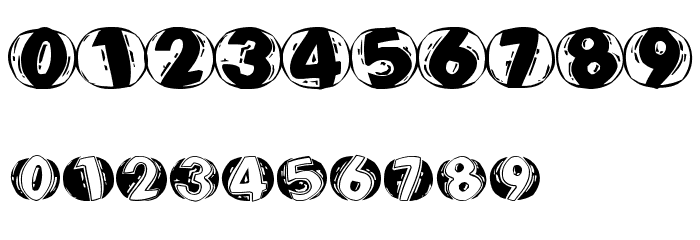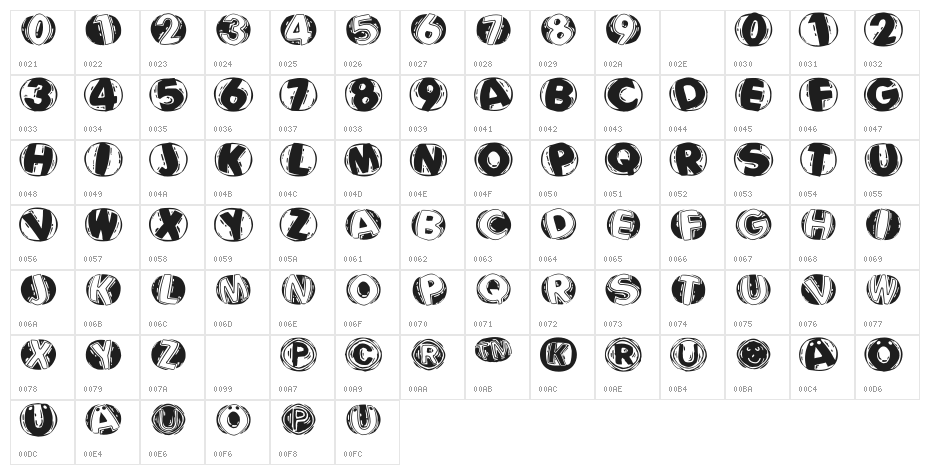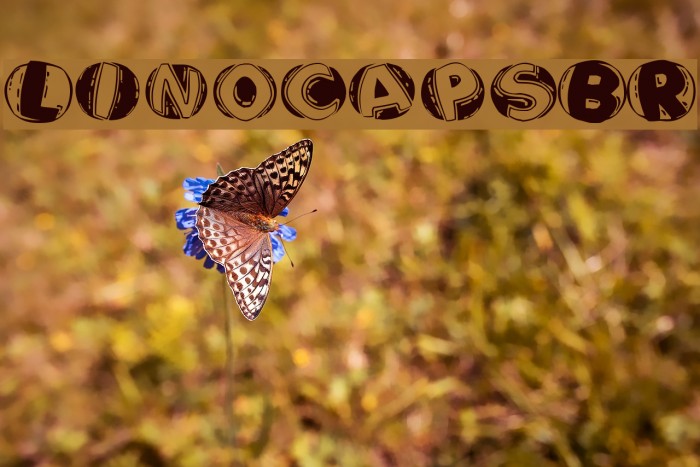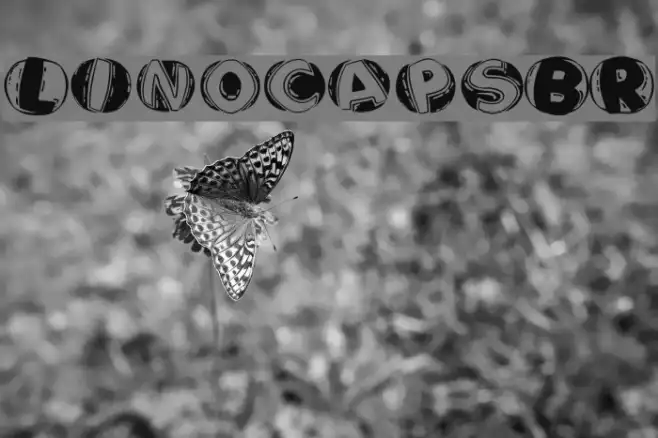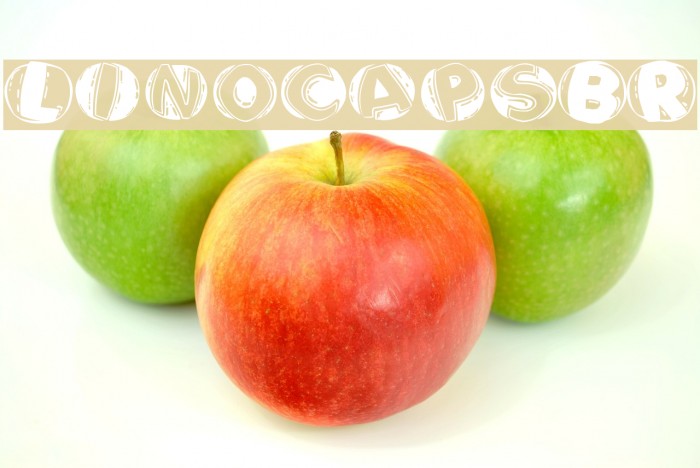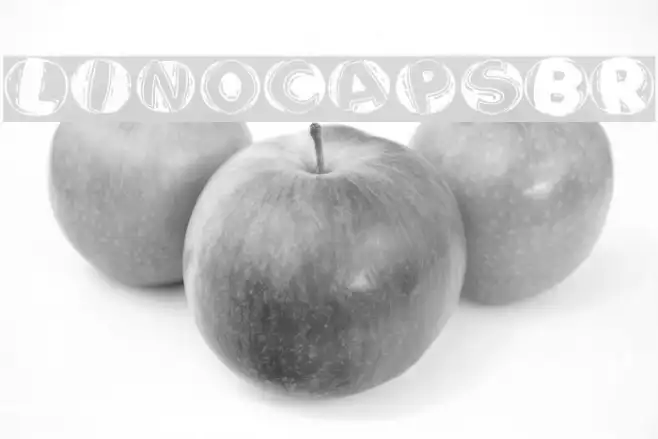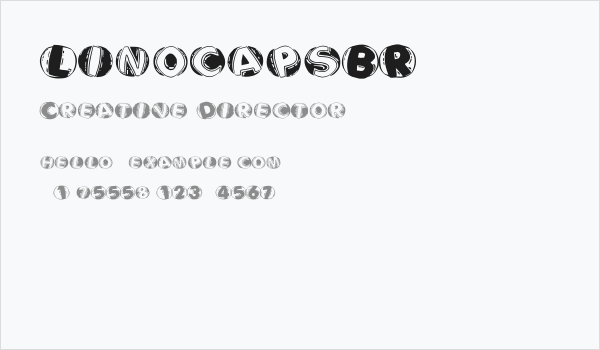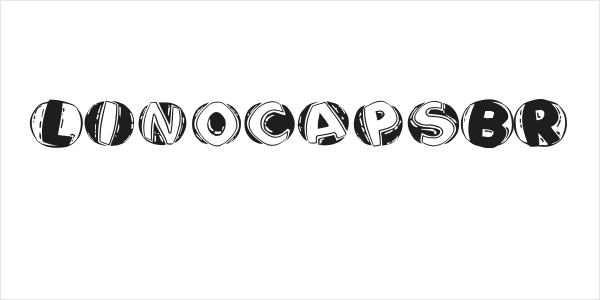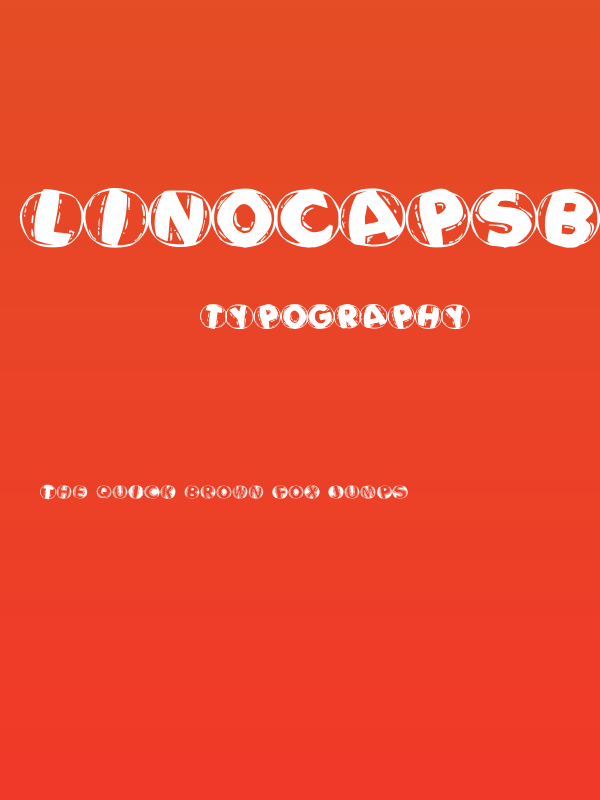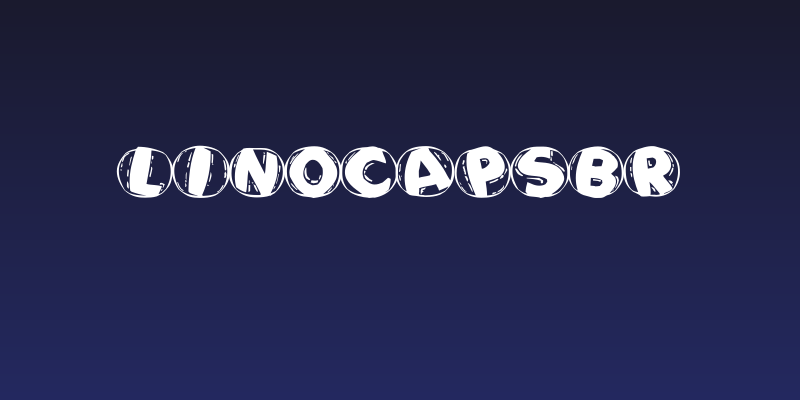
LinocapsBR Font
LinocapsBR Description
This font features a bold, playful style with each character enclosed in a circular shape, reminiscent of linocut art. The letters and numbers are presented in a high-contrast black and white scheme, with a hand-drawn, textured appearance that adds a dynamic and artistic flair. The irregular edges and varying stroke thickness give it a unique, handcrafted feel. This font is highly decorative, making it ideal for projects that require a bold and eye-catching design. The characters are evenly spaced within their circular enclosures, providing a consistent and cohesive look.
Proposed ProjectsIdeal for posters, album covers, children's books, and creative branding projects.